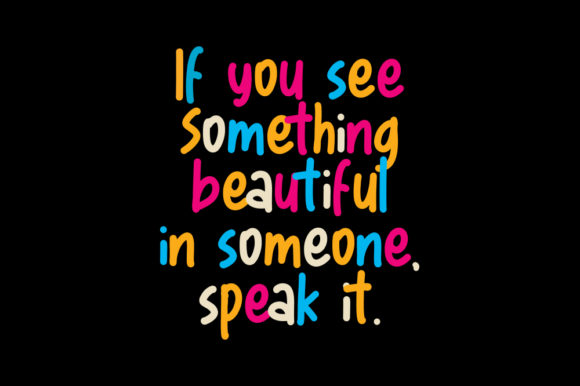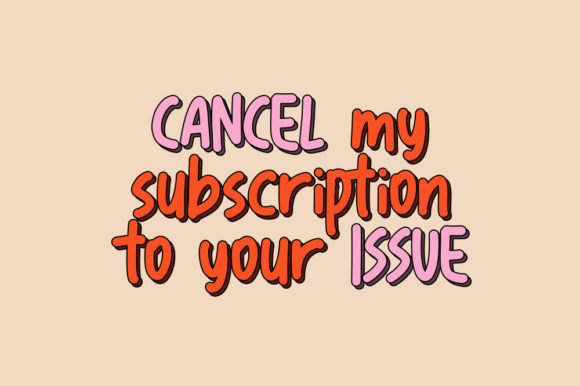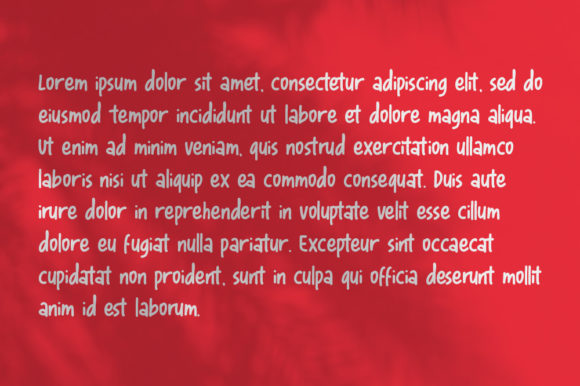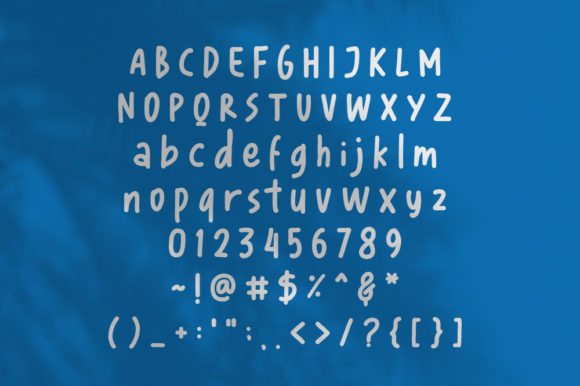
Introducing Bigsta Font: The Ultimate Casual and Modern Handwritten Font
Are you tired of using the same old fonts in your designs? Do you want to add a touch of personality and whimsy to your projects? Look no further than Bigsta Font, a casual and modern handwritten font that’s perfect for designers and crafters alike. In this article, we’ll dive into the world of Bigsta Font and explore its features, benefits, and uses.
What is Bigsta Font?
Bigsta Font is a beautiful, handwritten font that’s designed to make your designs stand out. With its casual and modern style, it’s perfect for a wide range of projects, from social media graphics to branding materials, and even digital and print publications. This font is characterized by its smooth, flowing lines and carefree vibe, making it an excellent choice for designers who want to add a personal touch to their work.
Key Features of Bigsta Font
- Casual and Modern Style: Bigsta Font boasts a fresh and contemporary look that’s perfect for modern designs.
- Handwritten Charm: The font’s handwritten style adds a touch of personality and whimsy to your designs.
- Versatile: Bigsta Font can be used in a variety of contexts, from busy backgrounds to standalone headlines.
- Easy to Read: Despite its casual style, Bigsta Font is highly legible, making it perfect for body text and captions.
Benefits of Using Bigsta Font
So, why should you choose Bigsta Font for your next project? Here are just a few benefits of using this amazing font:
- Adds Personality to Your Designs: Bigsta Font’s unique style helps your designs stand out from the crowd and adds a touch of personality.
- Perfect for Branding: The font’s modern and casual style makes it an excellent choice for branding materials, such as logos, business cards, and letterheads.
- Great for Social Media: Bigsta Font is perfect for social media graphics, including Facebook posts, Instagram captions, and Twitter headers.
How to Use Bigsta Font in Your Designs
Using Bigsta Font in your designs is easy! Here are a few tips to get you started:
- Pair it with Other Fonts: Bigsta Font looks great when paired with other fonts, such as sans-serif fonts for a modern contrast.
- Experiment with Colors: The font’s casual style makes it perfect for experimenting with different colors and gradients.
- Use it for Headlines and Titles: Bigsta Font is perfect for headlines and titles, adding a touch of personality to your designs.
- Add Texture and Patterns: The font’s handwritten style makes it a great match for textures and patterns, adding depth to your designs.
In conclusion, Bigsta Font is an amazing casual and modern handwritten font that’s perfect for designers and crafters alike. Its unique style, versatility, and ease of use make it an excellent choice for a wide range of projects. Whether you’re looking to add personality to your designs, create stunning branding materials, or simply want to try something new, Bigsta Font is an excellent choice. So why not give it a try and see the difference it can make in your designs?
- Is Bigsta Font suitable for body text?: While Bigsta Font is highly legible, it’s best suited for headlines, titles, and short paragraphs of text.